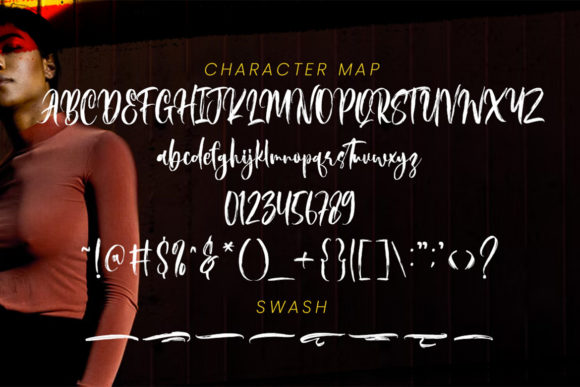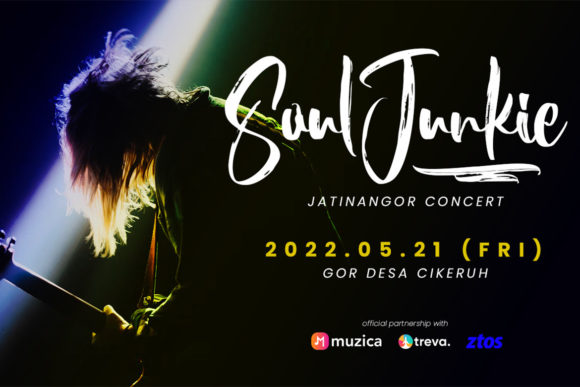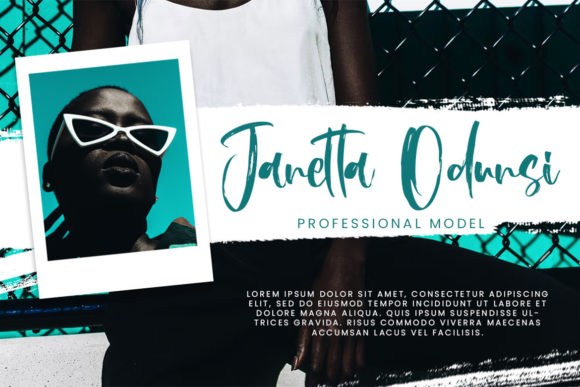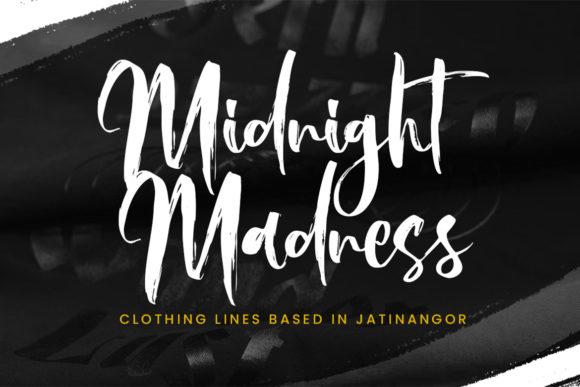
About Bienboia Font
“Bienboia” is a free-flowing and brushed script font crafted with a dynamic and expressive touch. Specifically designed for various applications such as packaging products, invitation cards, flyers, mockups, event posters, and more, this font emanates high-quality vibes. Its beautiful and balanced characters seamlessly integrate into a diverse range of designs, making it a versatile choice for creative projects.
The free-flowing nature of “Bienboia” adds a sense of fluidity and movement to your designs. The brushed script style imparts a dynamic and expressive quality, making it suitable for projects that require a touch of energy and liveliness.
Crafted with high-quality vibes in mind, “Bienboia” is well-suited for packaging products, elevating the visual appeal of labels, tags, and other packaging elements. The font’s expressive strokes and balanced characters contribute to a sophisticated and modern aesthetic.
Invitation cards and event posters benefit from the beautiful and balanced characters of “Bienboia.” The script font brings a touch of elegance and creativity, creating designs that captivate attention and convey a sense of style.
Flyers and mockups designed with “Bienboia” acquire a distinctive and high-quality look. The font’s versatility allows it to adapt seamlessly to various design contexts, ensuring that your promotional materials stand out with a unique and engaging visual identity.
The compatibility of “Bienboia” with a large design pool makes it a valuable asset for designers seeking a font that works well across diverse projects. Its free-flowing script and brushed style add a touch of authenticity, enhancing the overall character of your designs.
In summary, “Bienboia” is a versatile and expressive font that excels in conveying high-quality vibes. Whether applied to packaging, invitations, flyers, mockups, or event posters, its free-flowing and brushed script style contributes to dynamic and engaging designs. Let “Bienboia” be the font that adds a touch of energy and sophistication to your creative projects.